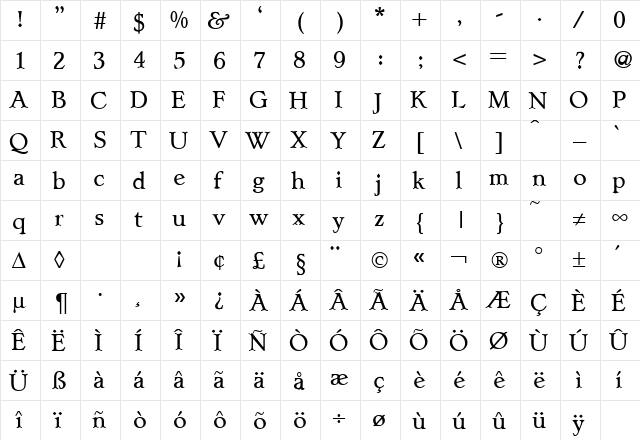
Lynchburg Bold
Design Context for Lynchburg Typeface
Lynchburg takes a measured approach to typography — its balanced proportions and neutral character make it a reliable workhorse for both digital and print work. Its bold stroke weight gives it real presence on the page.